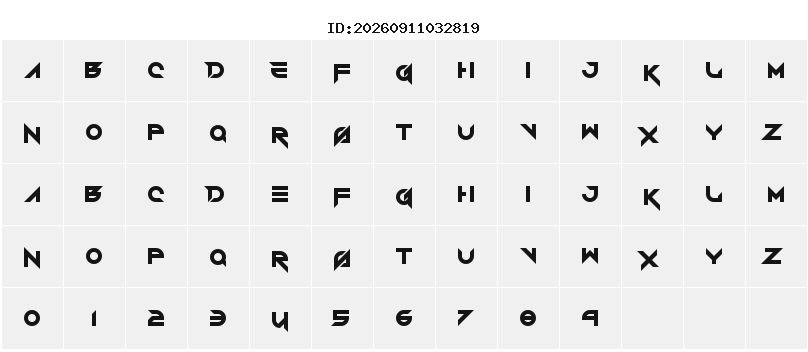
Vermin Vibes Roundhouse Preview
• Font Name: Vermin Vibes Roundhouse
• Full Font Name: Vermin Vibes Roundhouse Regular
• Designer: Andrew McCluskey
• Description: ‚ÄúVermin Vibes Roundhouse‚Äù was built with FontStruct
About Vermin Vibes Roundhouse.ttf
Vermin Vibes Roundhouse.ttf is a modern, elegant sans-serif font designed for ultimate readability and visual harmony. Perfect for branding, headlines, web design, and print materials.